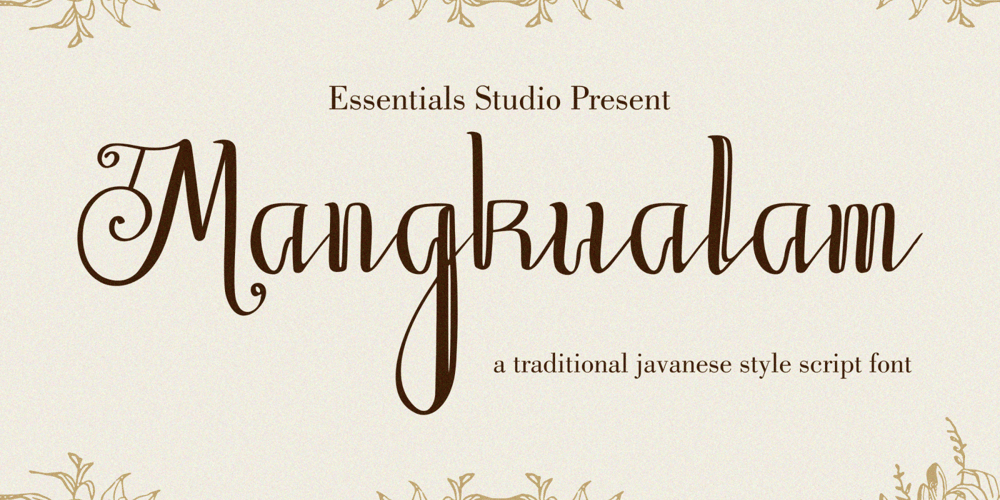
Mangkualam Font Family was designed by Bagus Panji Asmoro and published by Essentials Studio. Mangkualam contains 1 styles and family package options. Mangkualam Is a Traditional Javanese Style Script FontMangkualam is perfect for product packaging, branding project, megazine, social media, wedding, or just used to express words above the background.